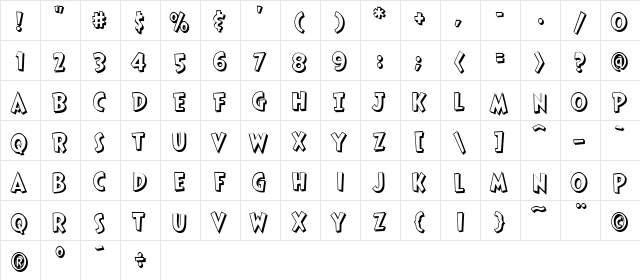
CCThatsAllFolksOutline Regular
CCThatsAllFolksOutline is built around its visual character rather than neutral utility — its distinctive forms are designed to make an impression at display sizes.
Font Pairing: Pair with a clean neutral sans-serif for body copy to let CCThatsAllFolksOutline's character lead without overwhelming the composition.
Pro Tip: Treat CCThatsAllFolksOutline as the centrepiece of your typographic hierarchy. One strong heading set in a decorative face can carry an entire layout.